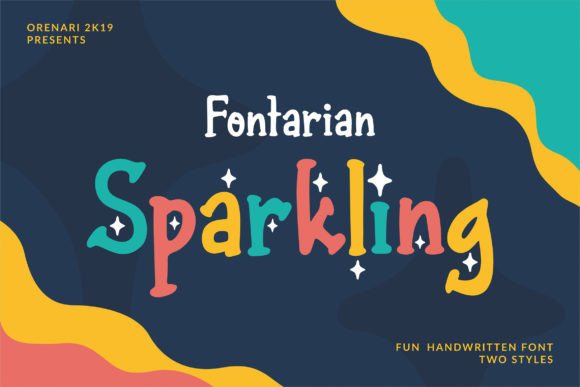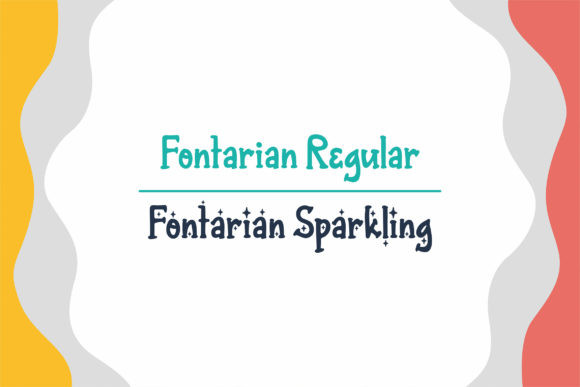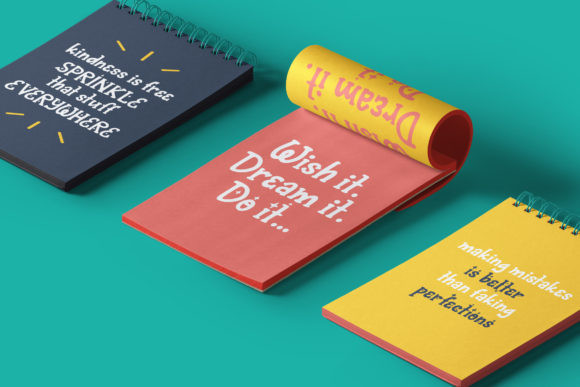
Fontarian Sparkling Font
Fontarian Sparkling is a fun handwriting font with two different styles. It will give your designs a unique and special touch!